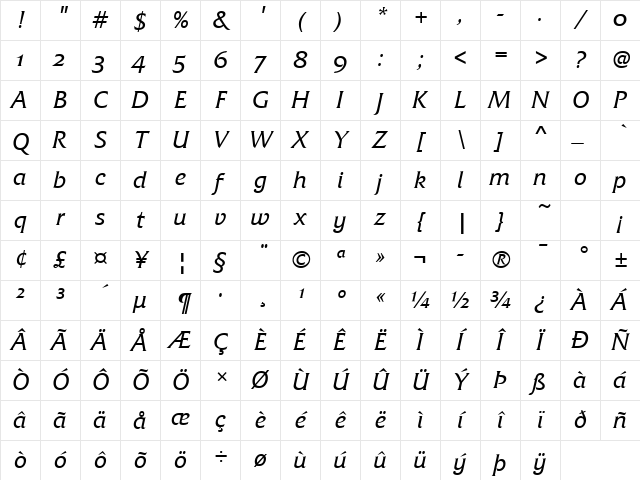
Complete Friz Quadrata OS TT Italic glyph index. Displaying only characters natively supported by Friz Quadrata OS TT Italic font.
Friz Quadrata OS TT is a composed and adaptable typeface that performs quietly and consistently across a wide range of design contexts. The slanted form adds forward momentum and visual energy.
Pro Tip: Use Friz Quadrata OS TT for emphasis, pull quotes, and subheadings where its slanted energy can add rhythm to the layout.